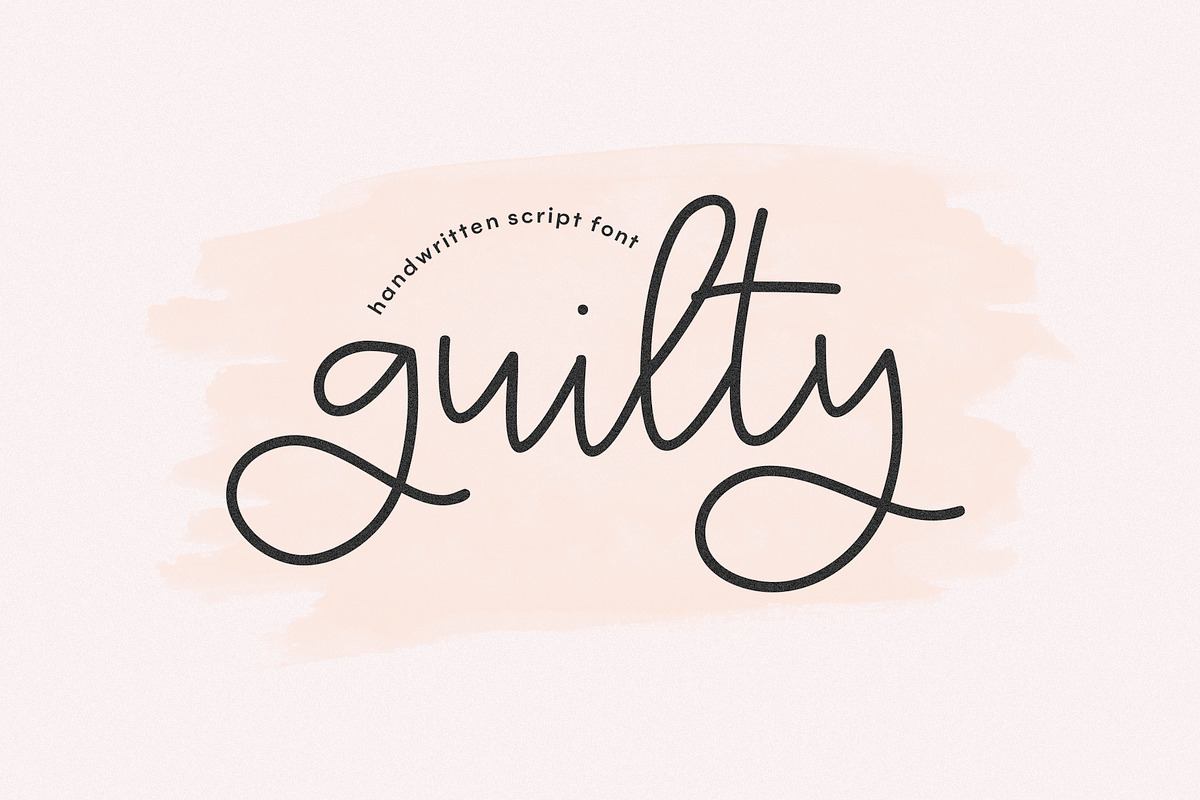
Guilty is a modern handwritten script font designed by KA Designs. It's perfect for crafts, logos, SVG files, farmhouse designs, invitations, wedding decor, stickers, and more.
Design: Guilty features a handwritten script style with a personal touch, making it ideal for various design applications.
Usage: Suitable for Cricut projects, logos, quotes, stickers, shirts, mugs, and more.